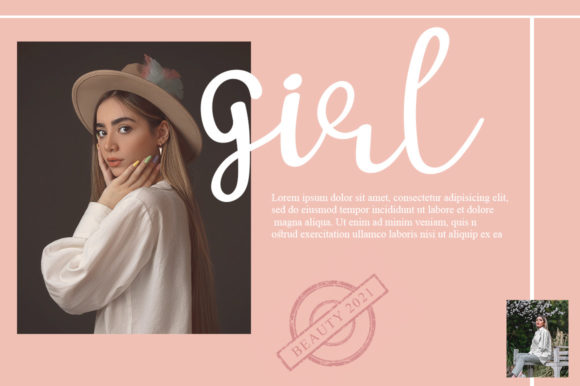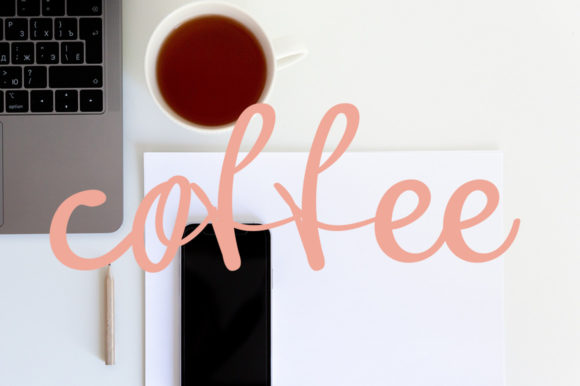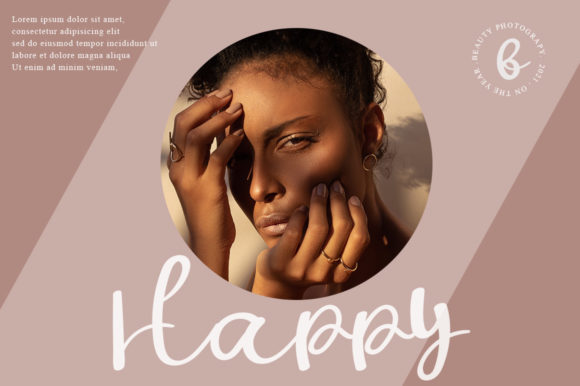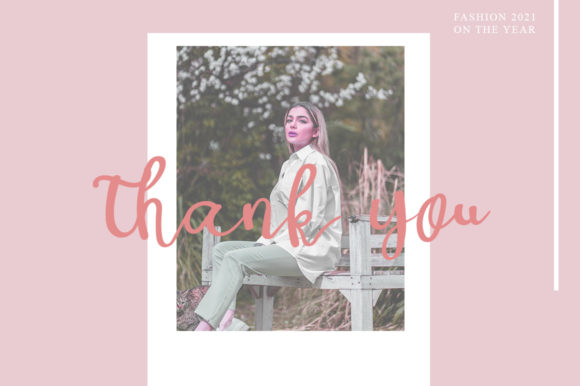
About Soulmate Font
Soulmate is a sweet and delicate handwritten font. Dainty and joyful, this font will be ideal for writing wedding invitations, cards or any other design that may need a romantic, personalized touch!